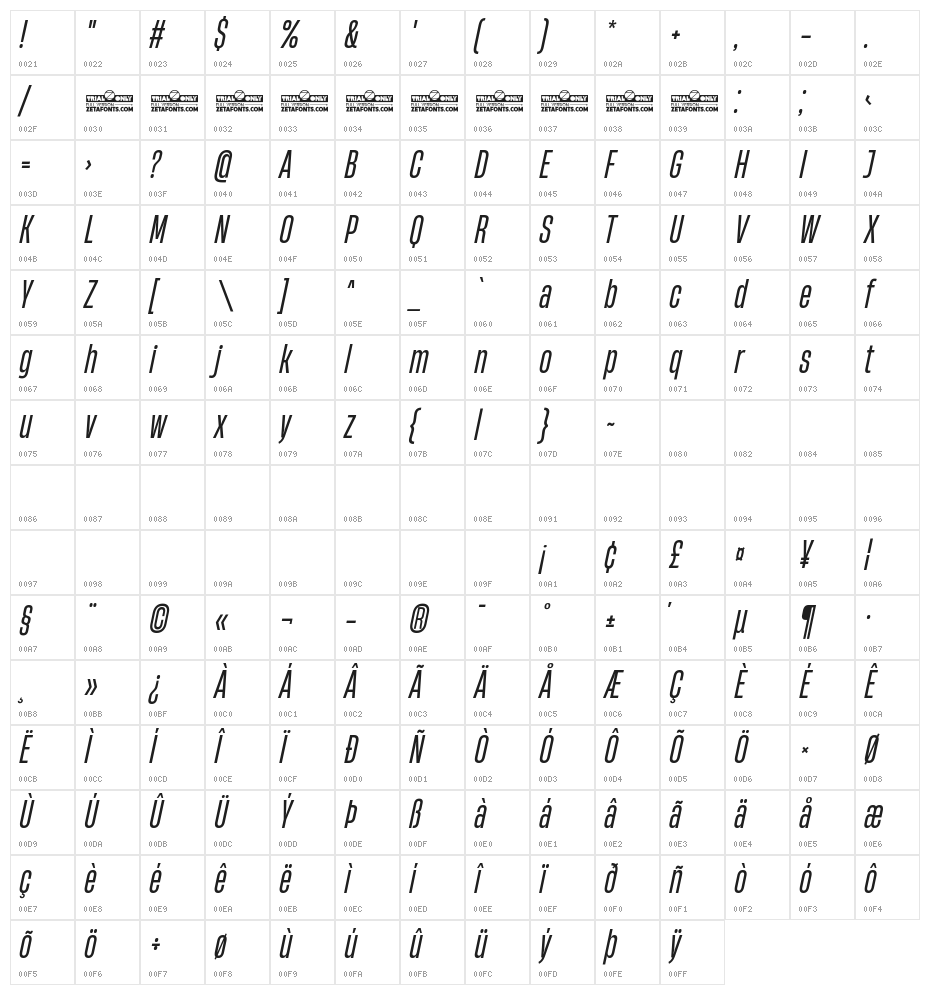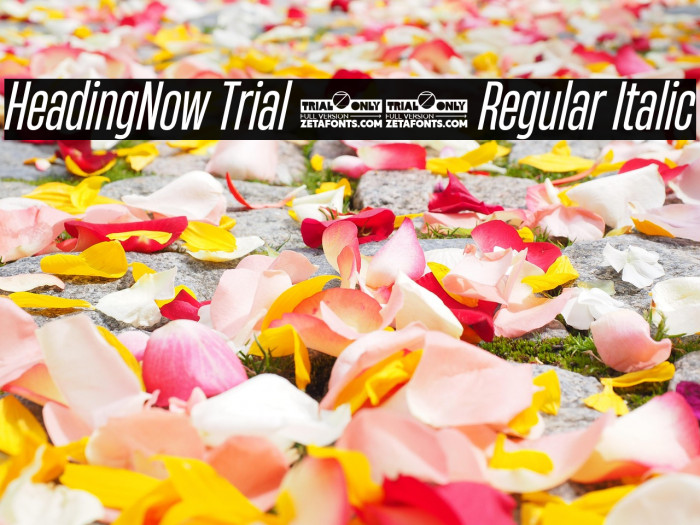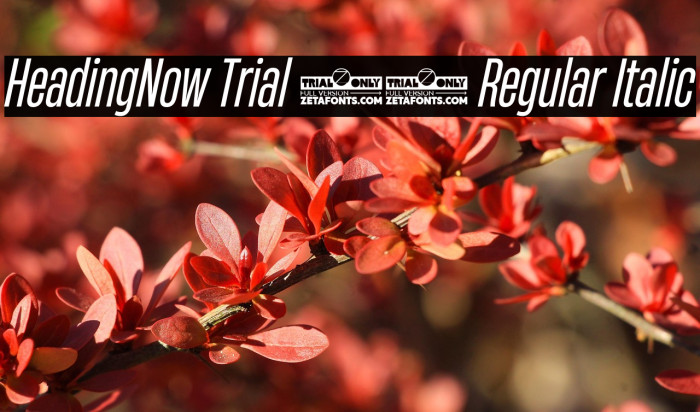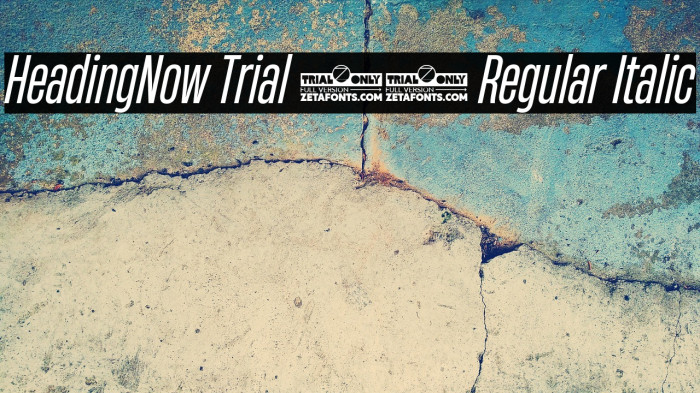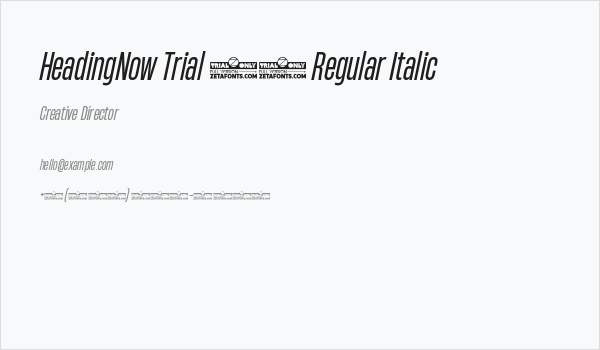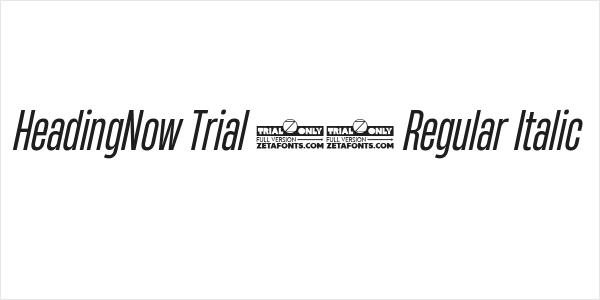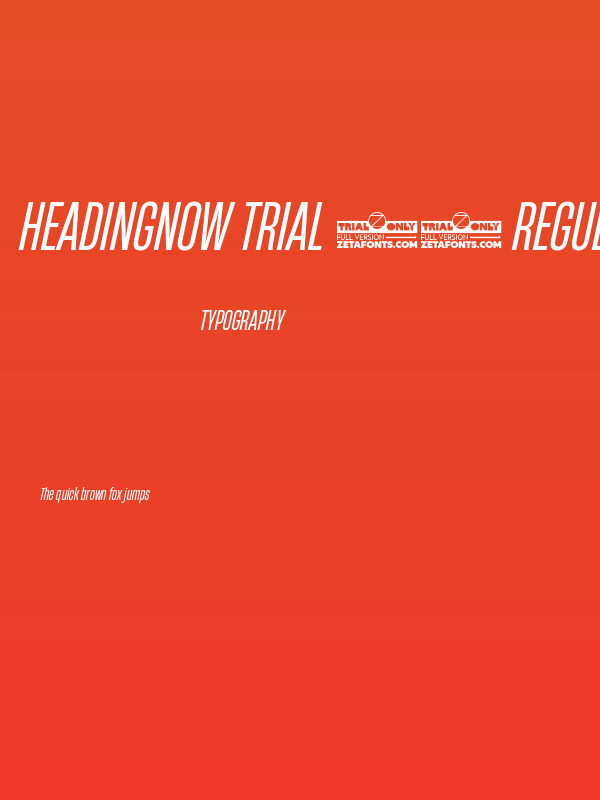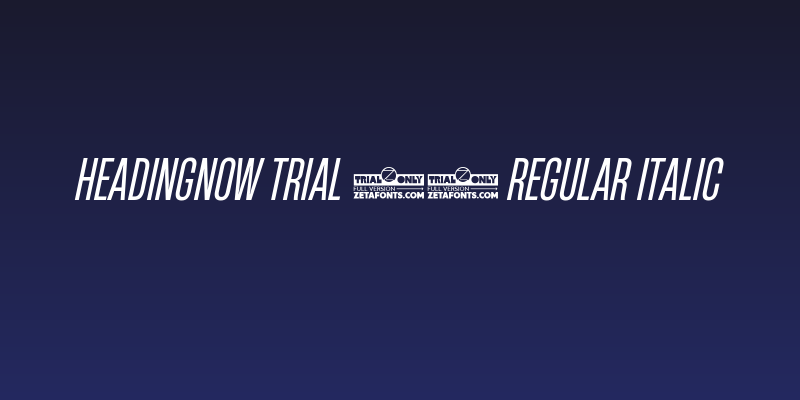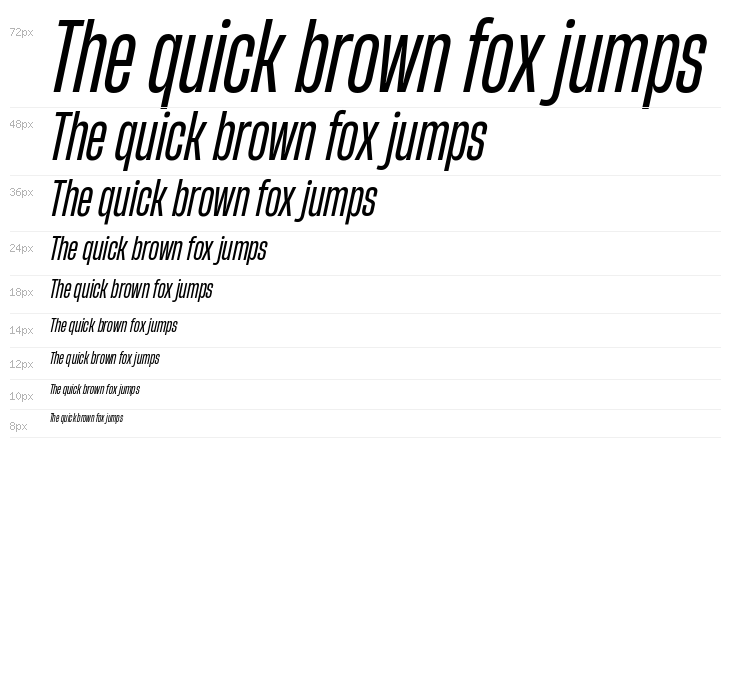
HeadingNow Trial 34 Regular Italic Font
HeadingNow Trial 34 Regular Italic Description
This font features a modern and sleek design with a strong emphasis on verticality and sharp angles. The uppercase letters are tall and narrow, creating a sense of elegance and sophistication. The lowercase letters maintain a consistent style, complementing the uppercase with their slightly condensed form. The italic style adds a dynamic and forward-leaning appearance, enhancing its contemporary feel. The numerals and special characters are designed to match the overall aesthetic, ensuring a cohesive look across all text elements. The font's clean lines and minimalistic approach make it suitable for a variety of design applications.